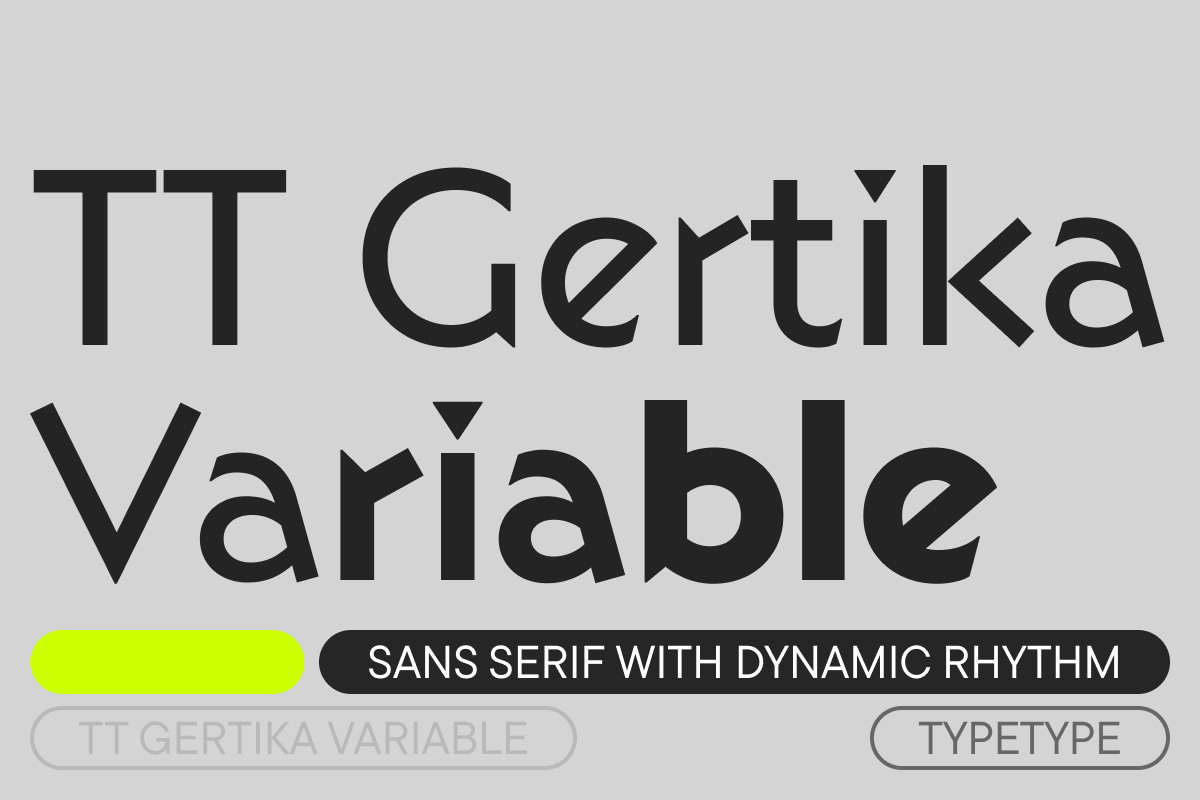
TT Gertika Variable
TT Gertika is a geometric sans serif with a dynamic character and a dancing rhythm. This font’s idea originates from the lettering featured on an American poster from the late 1930s. We saw many peculiar and eye-catching details in the letters and decided to reimagine them. As a result, we got a font that alludes to something ancient and primitive while still being modern.